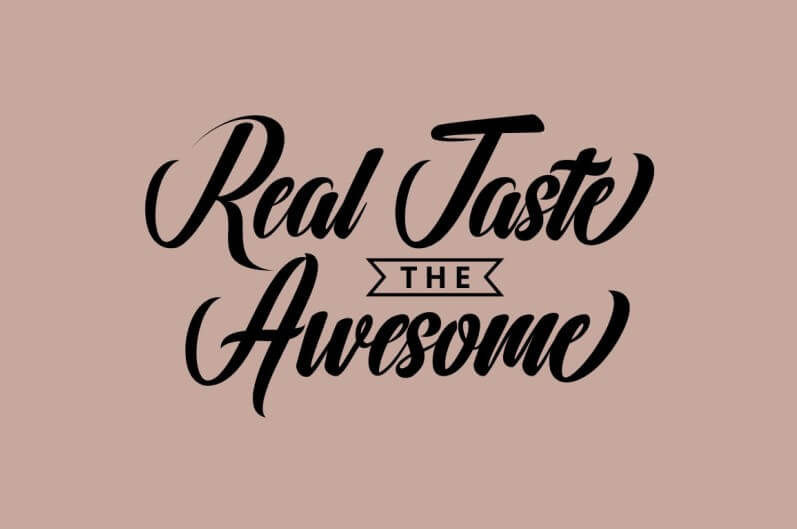
Hunting Script Font
Hunting Script Font that belongs to a calligraphy design. The font capabilities a smooth character layout with each uppercase and lowercase letters. It’s best for social media, innovative, and kid-friendly design projects.
This stylish calligraphy font comes with a fancy content display. That makes it also called radiant script font for all varieties of print and virtual designs. It’s loose to apply with personal and commercial initiatives.